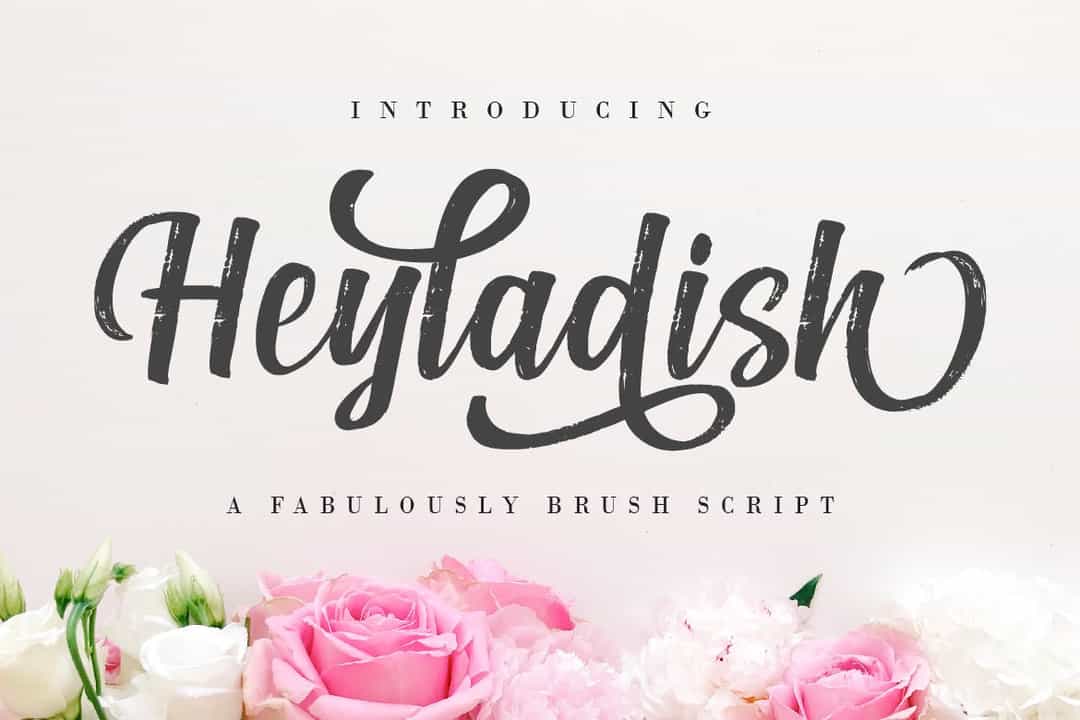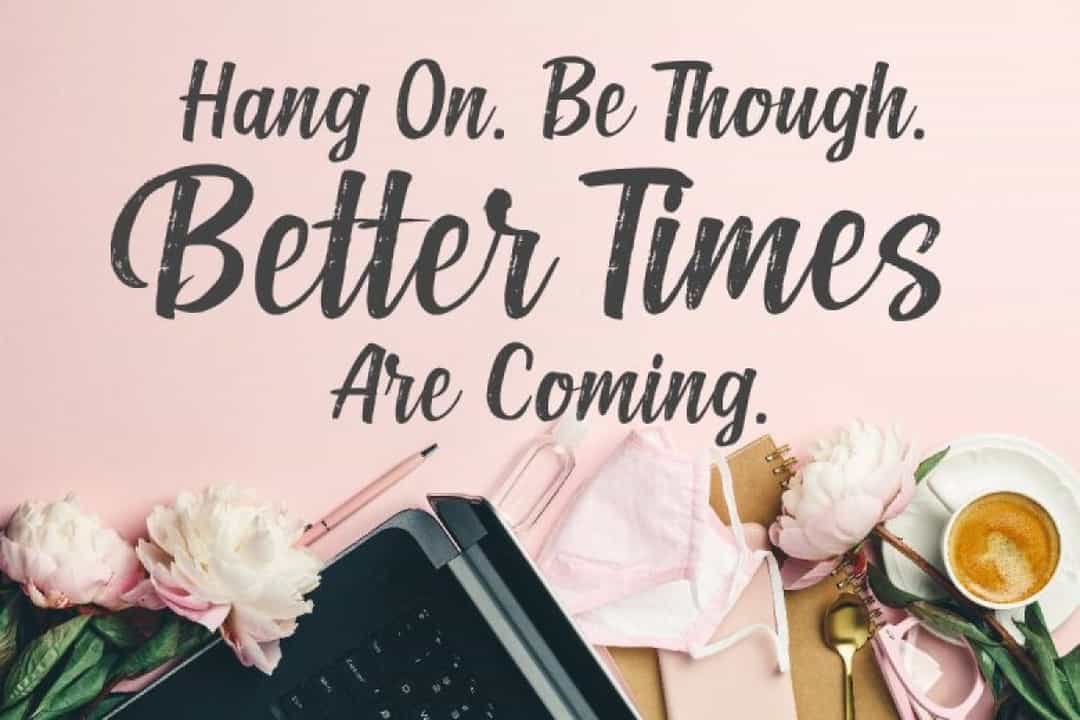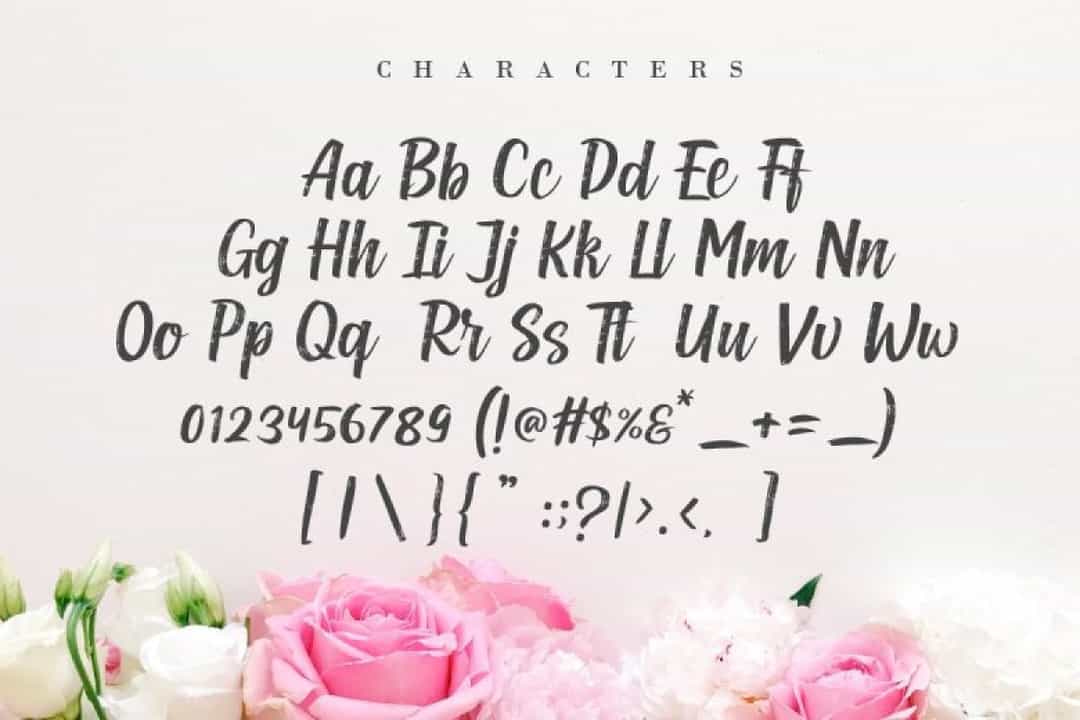
Discover Heyladish Font, part of the Brush collection—a versatile and unique font perfect for adding a personal touch to your projects. Download it for free and enjoy crafting designs with style, from invitations to social media posts. This font is available exclusively for personal use, giving you the freedom to create without limits. Unlock your creativity with Heyladish Font today!
Heyladish Brush Script Font is ideal for crafting adorable invitations for birthdays, weddings or any special occasions – from birthday parties and weddings to baby showers or any other event imaginable!